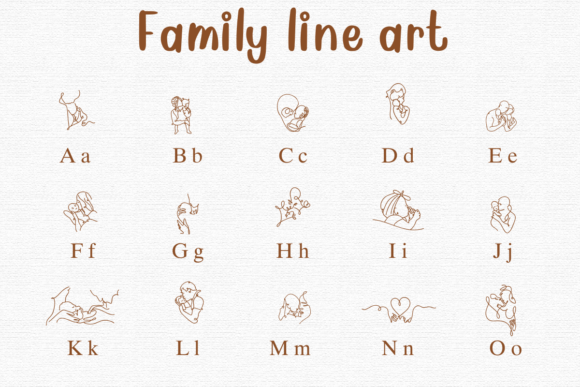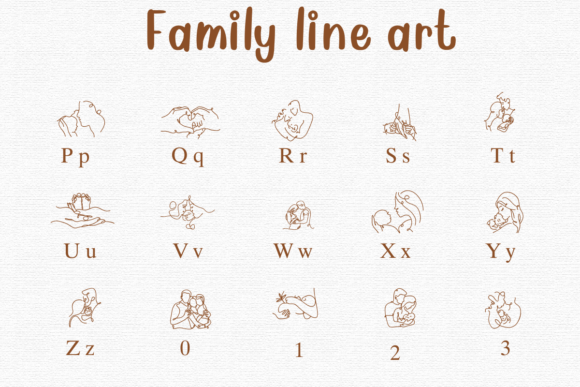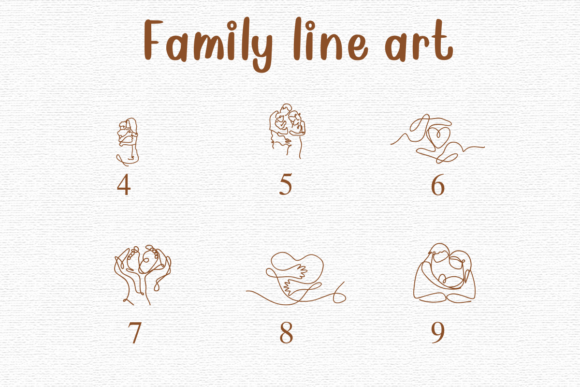
Introduction to Family Line Art Font
Family life art is a dingbats font with a sketched style.
This font can enhance your creative projects such as wedding invitations, DIY, crafts, decorations, logos, and many other creative ideas .